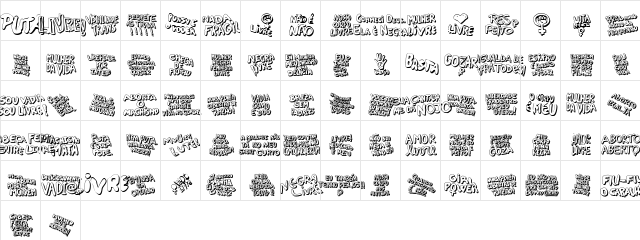
femme Italic Font Preview
femme Italic
femme Italic Font Details
| Foundry | josinaldo barbosa & Tainá Palhano |
| Designer | josinaldo barbosa & Tainá Palhano |
Design Context for femme Typeface
femme is a composed and adaptable typeface that performs quietly and consistently across a wide range of design contexts. The slanted form adds forward momentum and visual energy.
Pro Tip: Try femme for annotation and caption copy alongside an upright companion — the contrast in angle creates a dynamic but ordered typographic system.